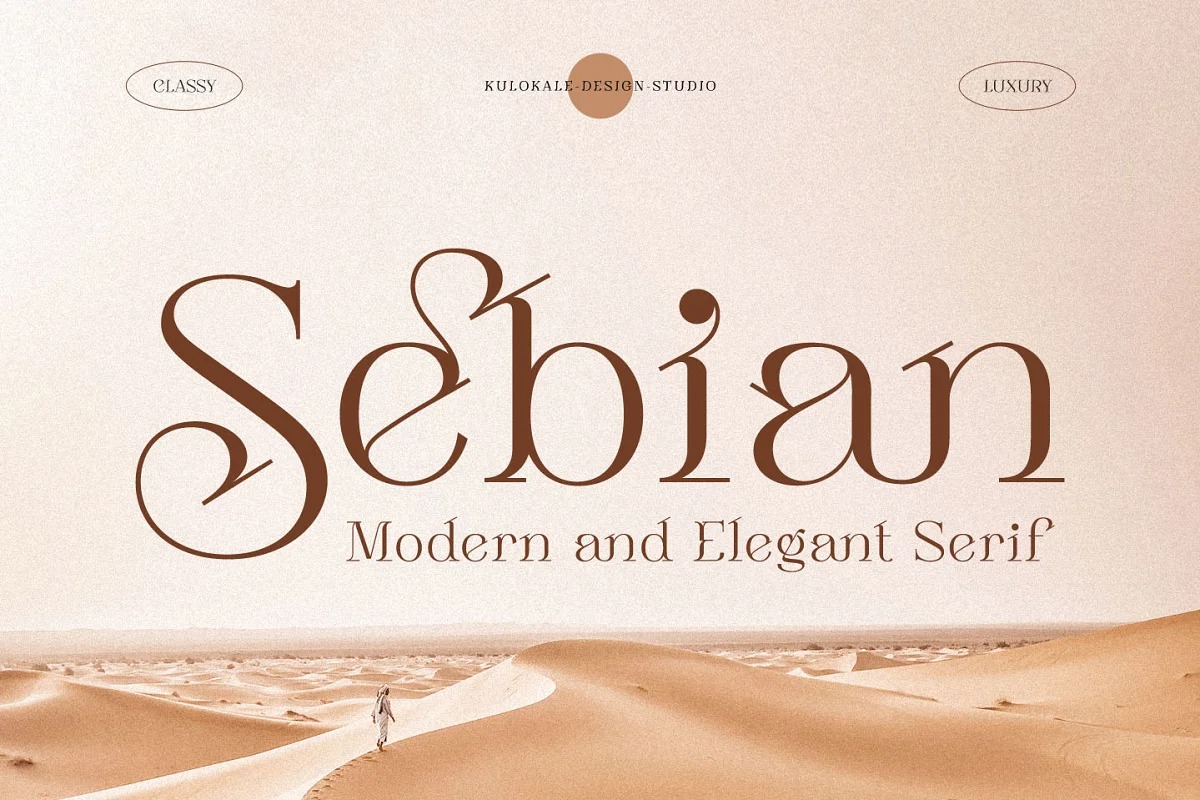
Sebian Serif Font
It’s a modern serif typeface with extras. Made from font designer named Kulokale. This font is well-suited for advertising, branding, logotypes, packaging, titles, headlines and editorial design. This font comes in two styles, Regular and Italic Version.